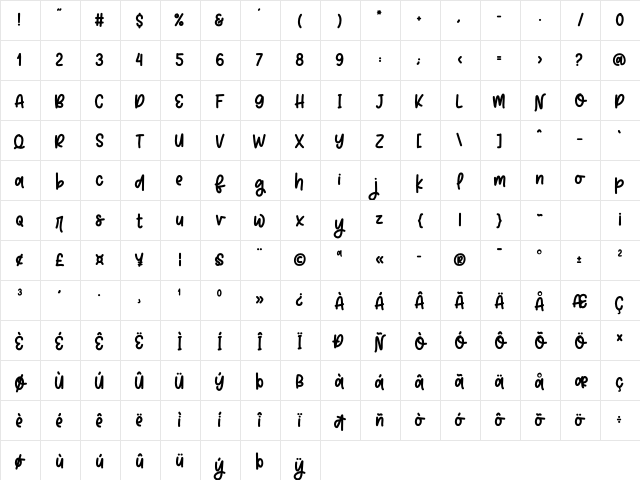
Barryone Regular
Designer: Awan Senja Team
Design Context for Barryone
Barryone is a composed and adaptable typeface that performs quietly and consistently across a wide range of design contexts.